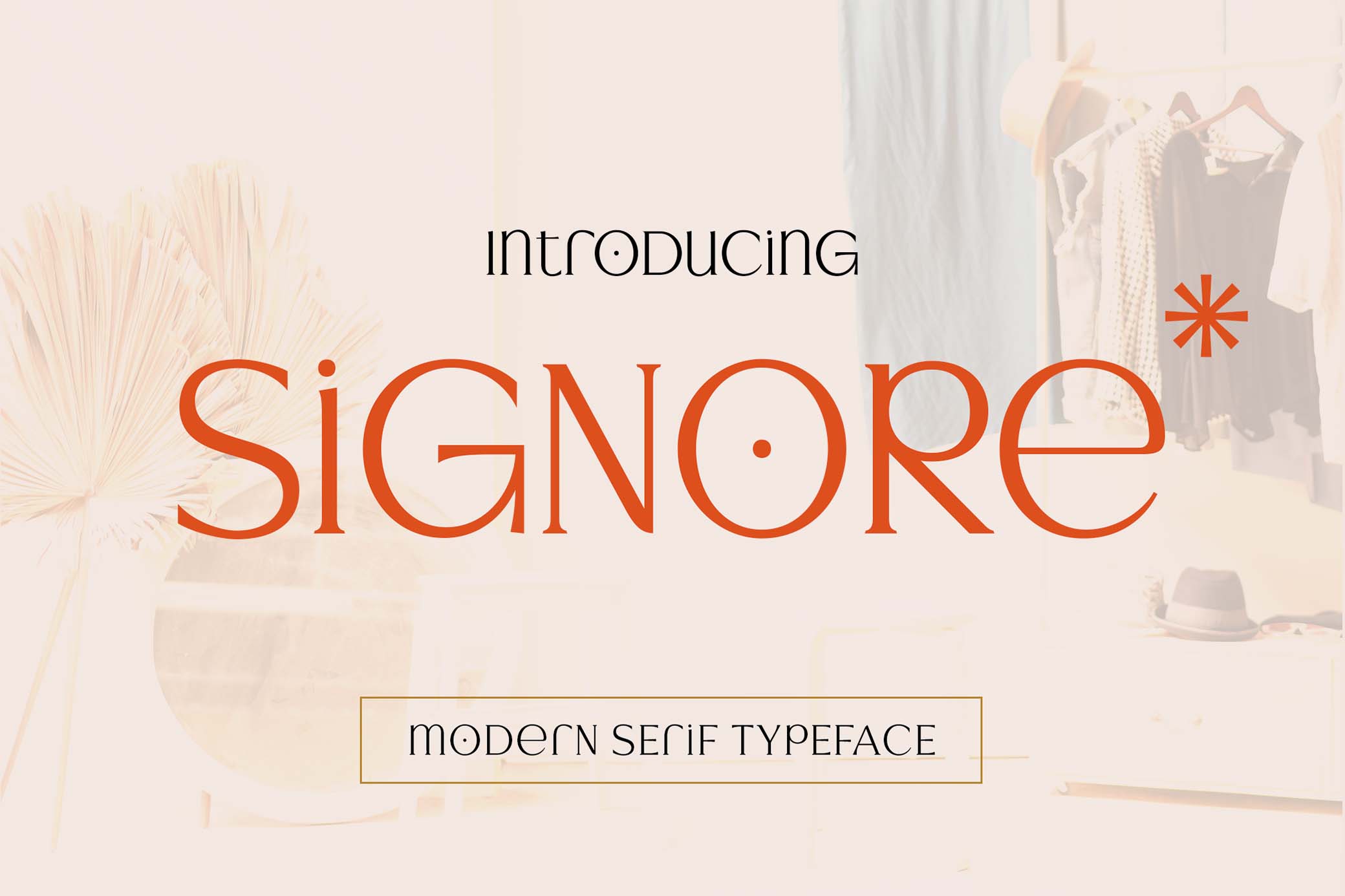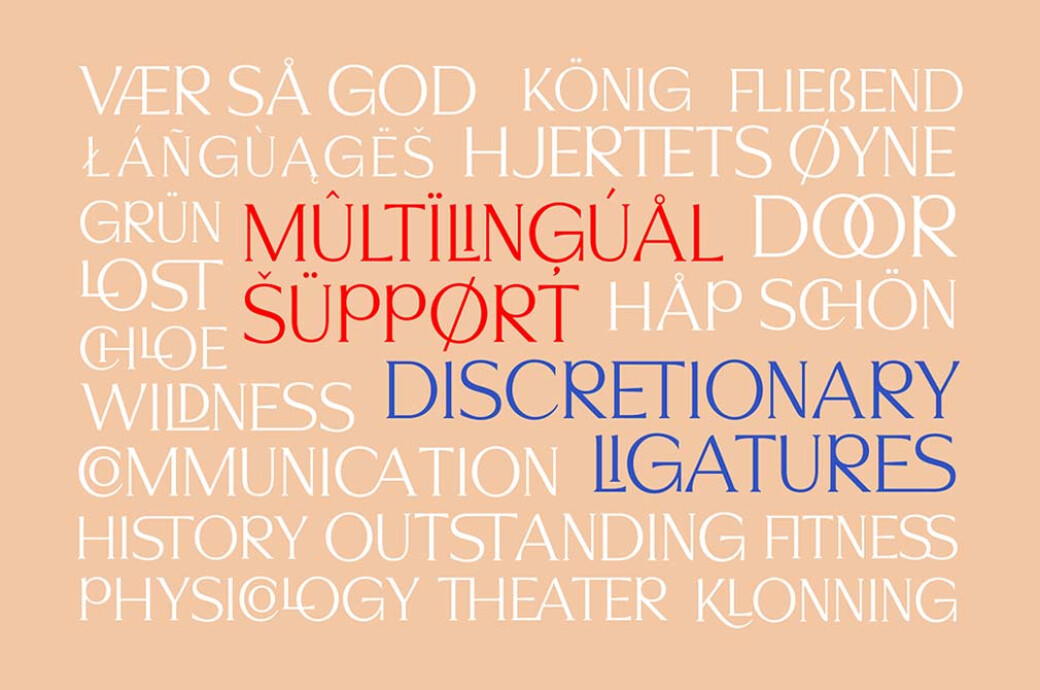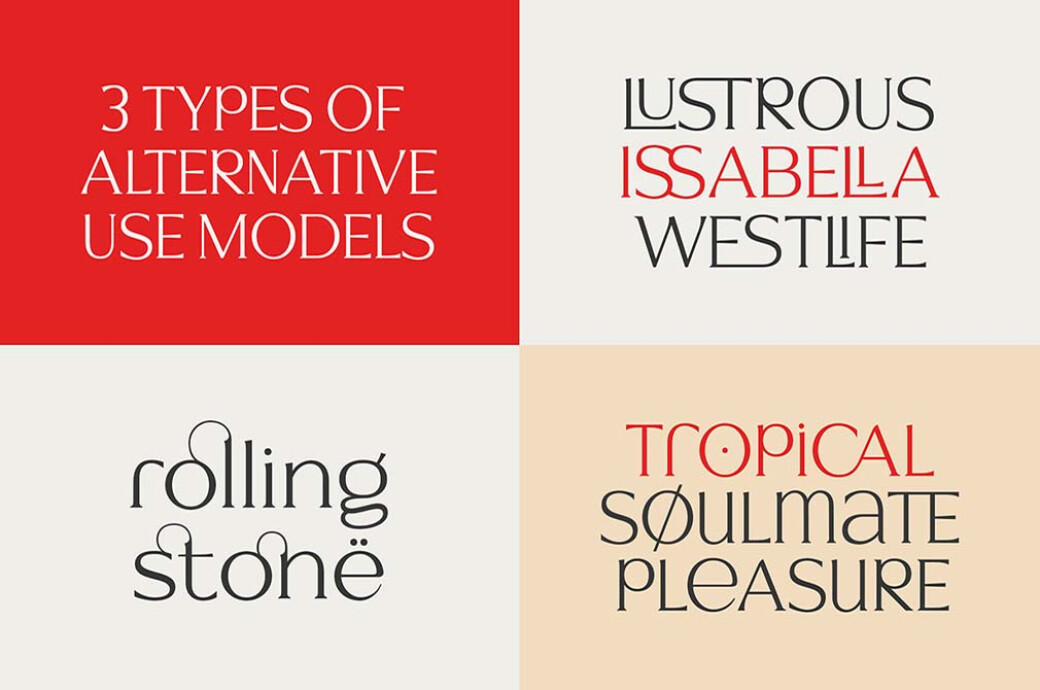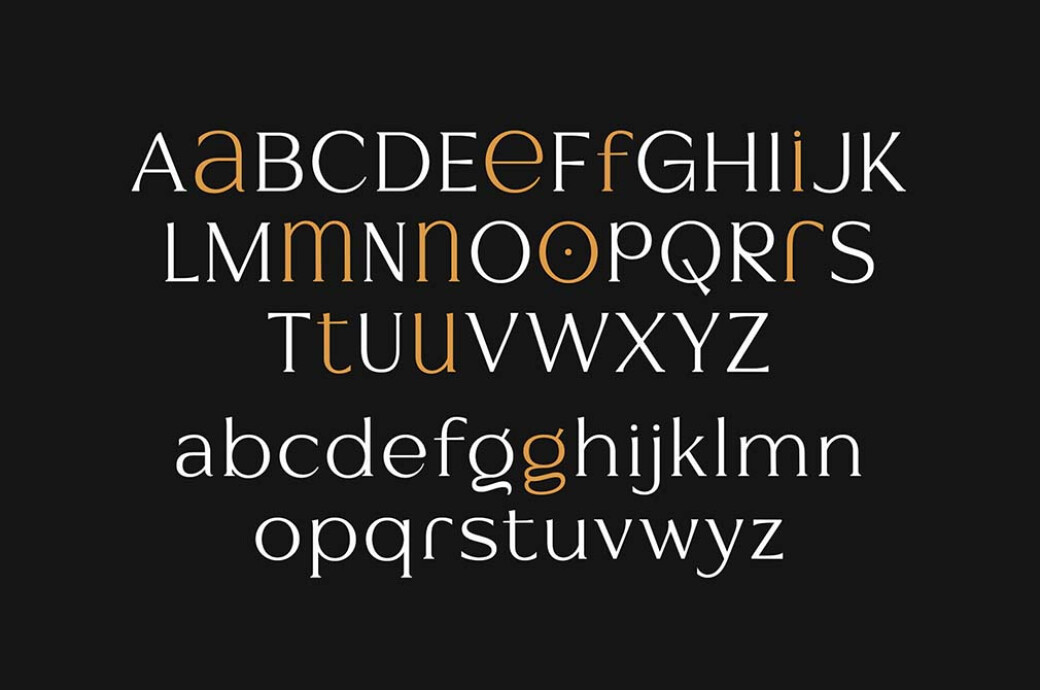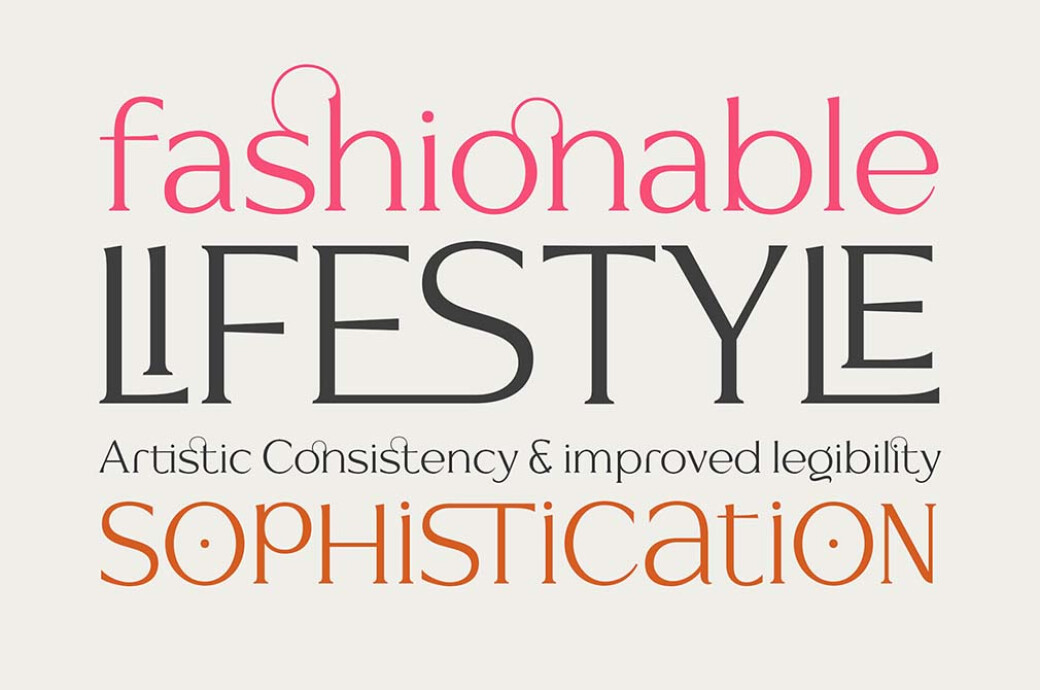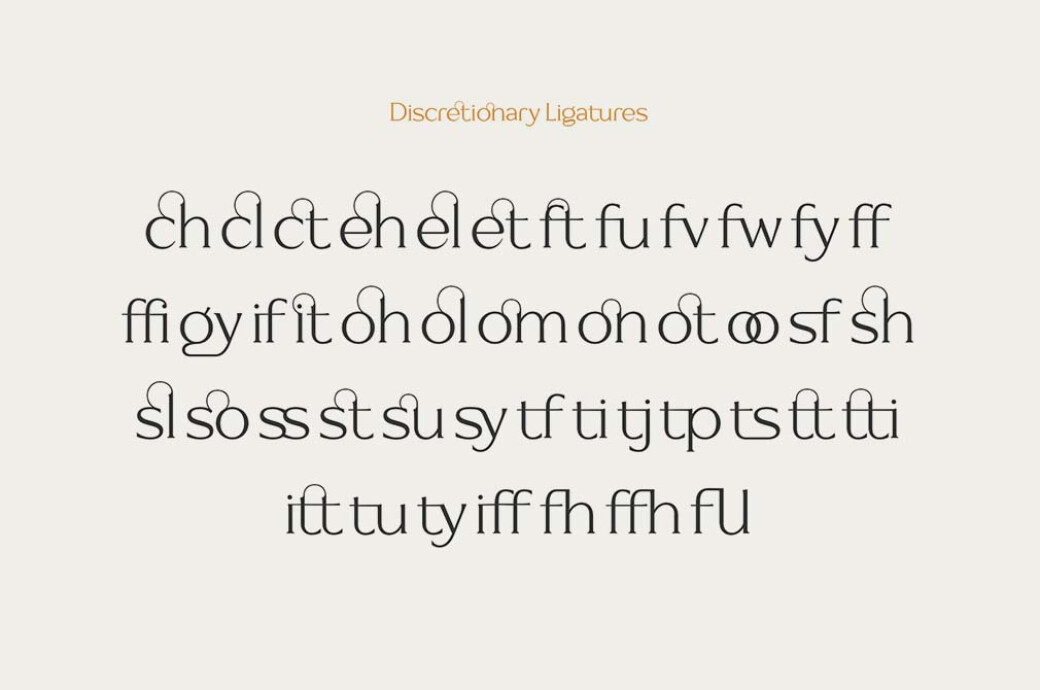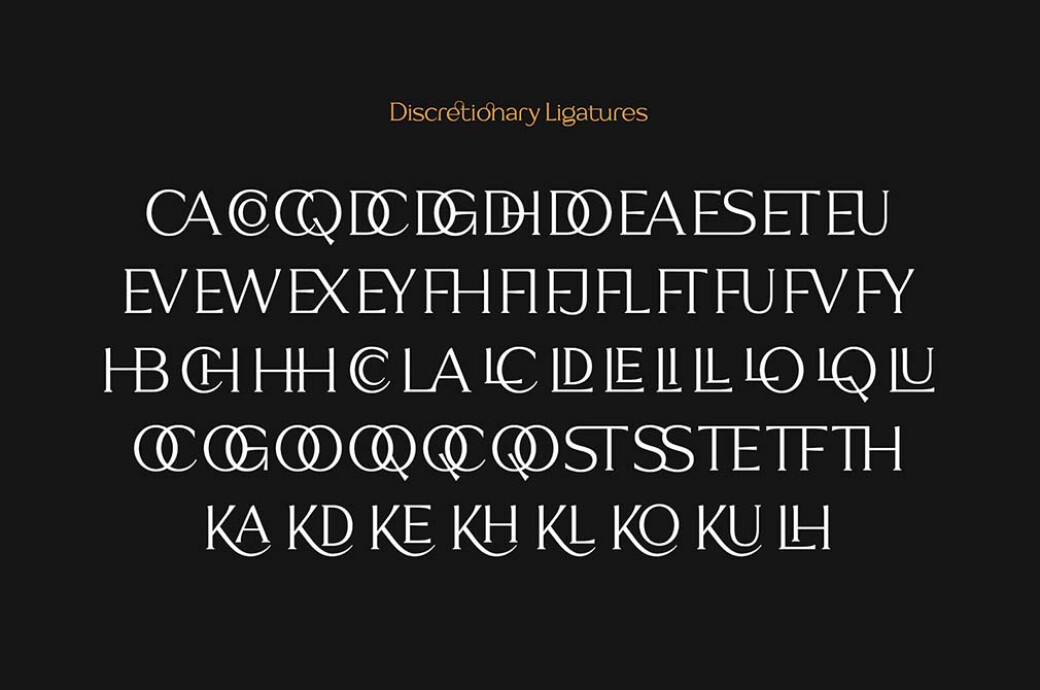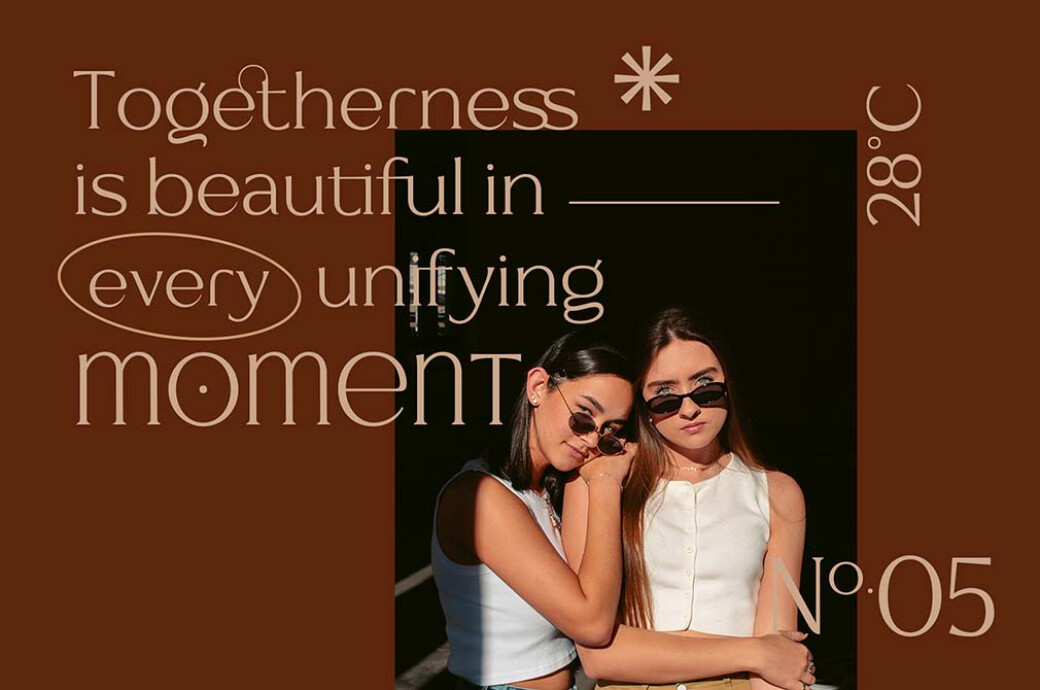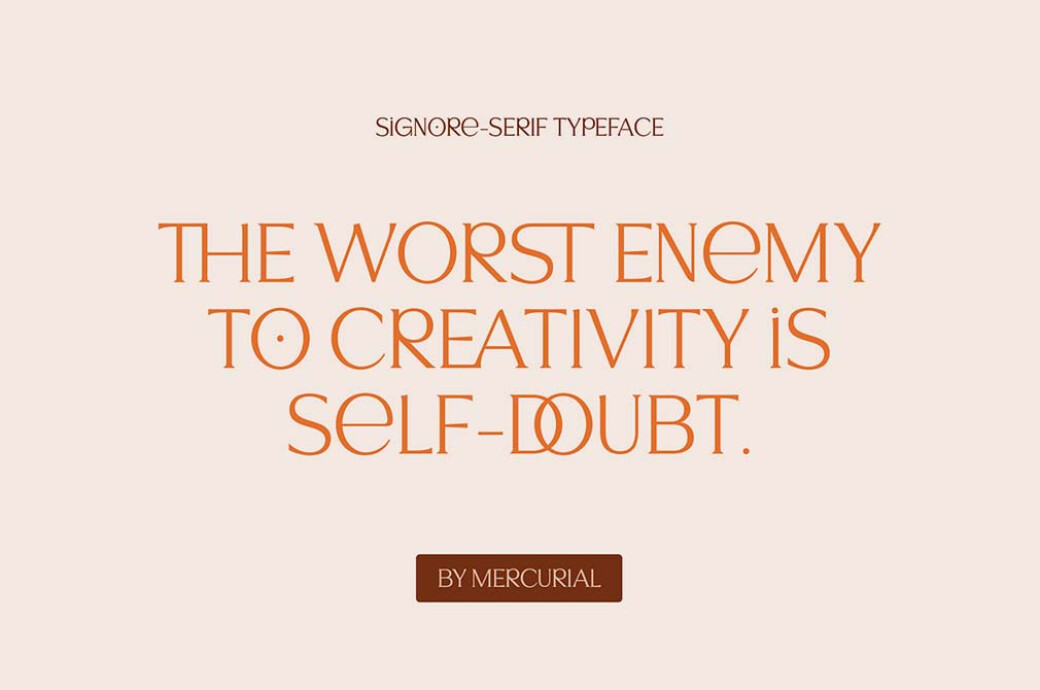
Signore Serif Typeface
The thin, softly-curved lines of this modern serif font are the epitome of elegance. No doubt it will become your source of inspiration for the next fancy project!Classic style never feels outfashioned. And that's the most powerful thing about it (well, maybe it's still in second place after its undeniable beauty). Signore typeface embraces this force in the most exquisite, sophisticated way you could only imagine. Perfectly suiting each other, the upper and lowercase letters of this font turn your texts into paintings full of luxury and opulence. Complete your message with accented characters, stylistic alternates and discretionary ligatures and see how magical the outcome will come out.